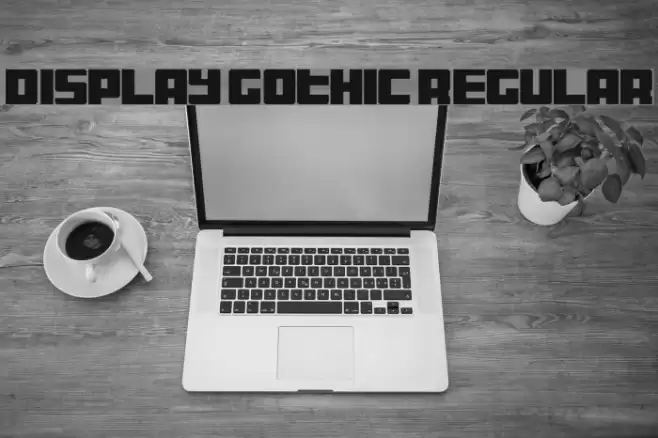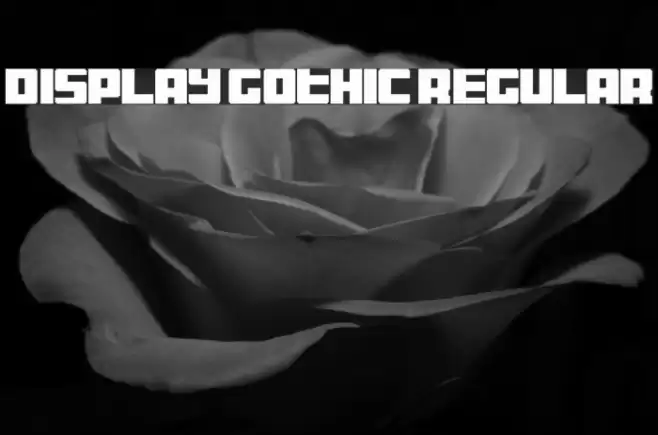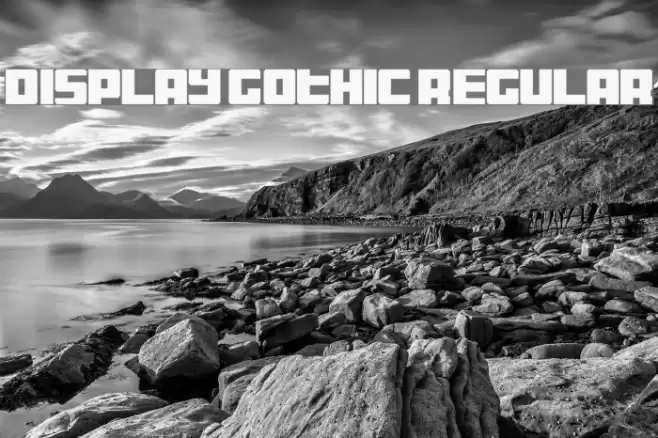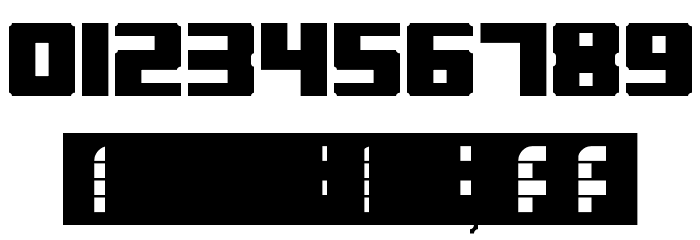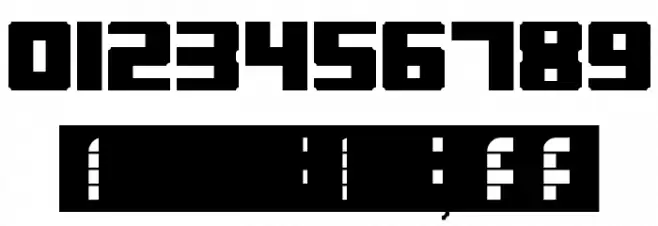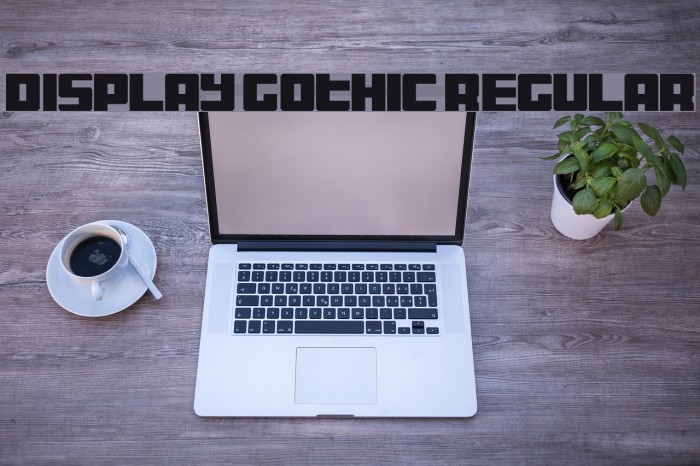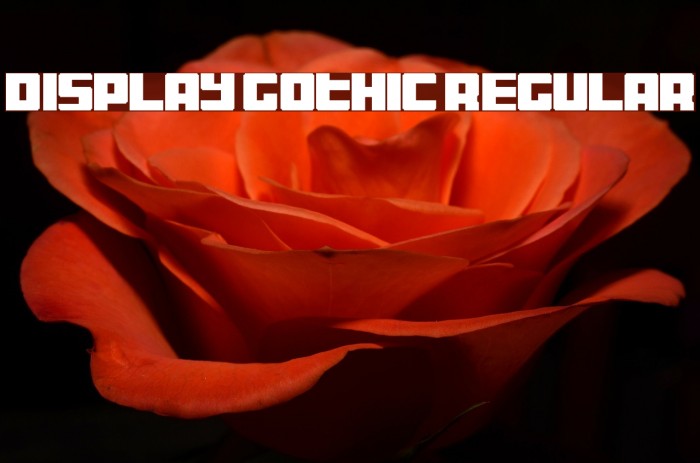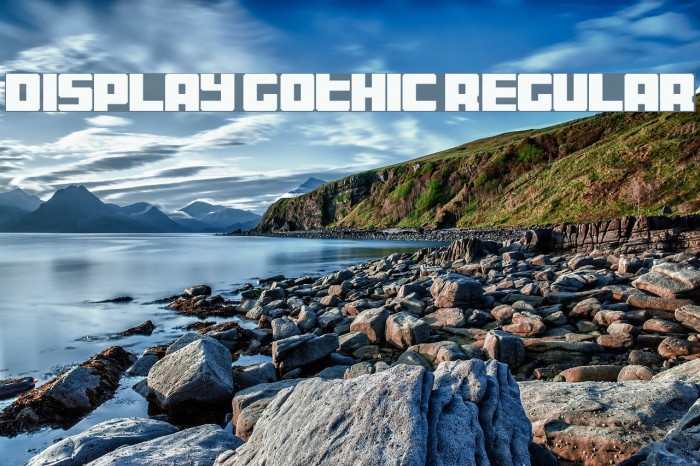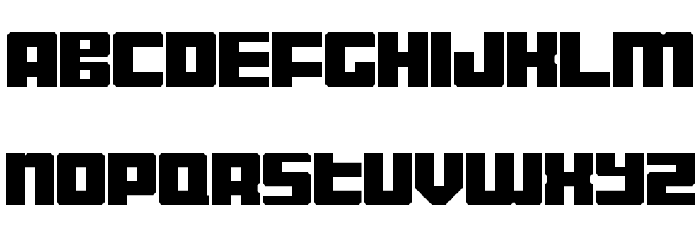
Display Gothic Regular Font
Display Gothic Regular Description
This font exhibits a bold, geometric style with a strong presence. The characters are blocky and robust, featuring uniform stroke widths that contribute to a cohesive and impactful appearance. The uppercase and lowercase letters maintain a consistent height, enhancing the font's uniformity. The numerals and special characters are designed to match the boldness of the alphabet, ensuring a harmonious look across all characters. The font's design is reminiscent of industrial or futuristic themes, making it suitable for projects that require a modern and assertive aesthetic. Its clear and legible structure makes it ideal for display purposes where attention-grabbing text is essential.
A bold, geometric font with a strong, uniform appearance ideal for modern display use from Uncategorized fonts.
- Proposed Projects: Perfect for branding, posters, headlines, and any design requiring a bold, modern touch.